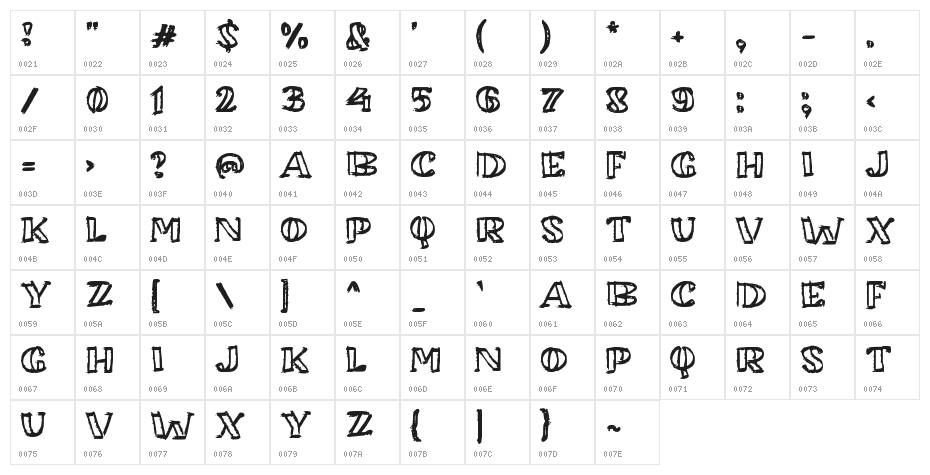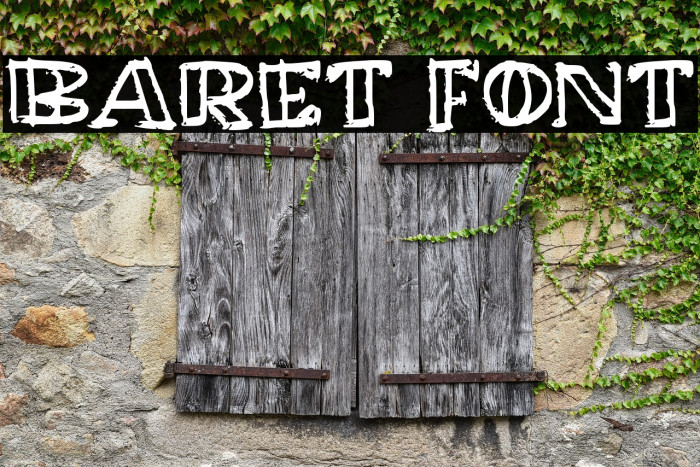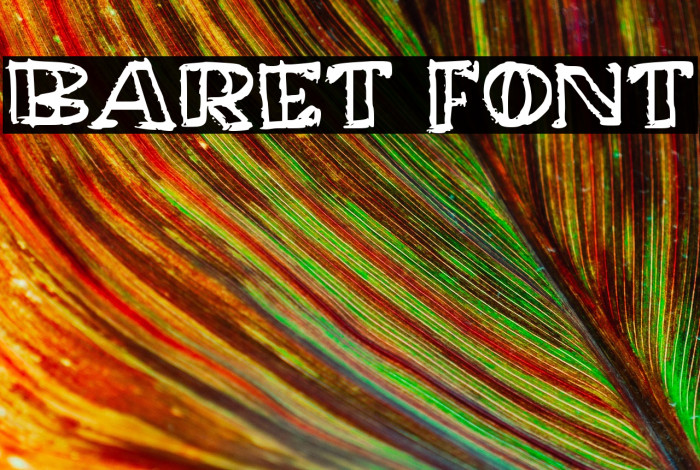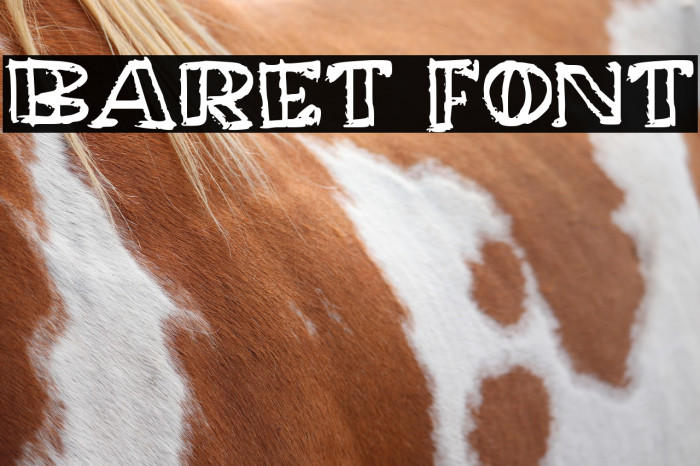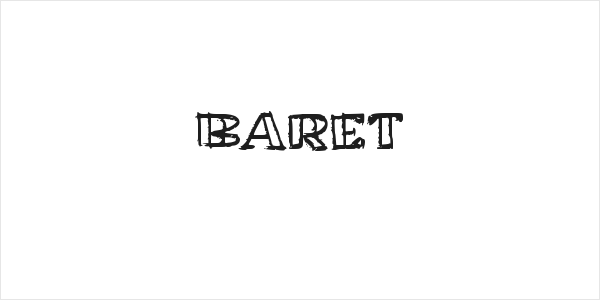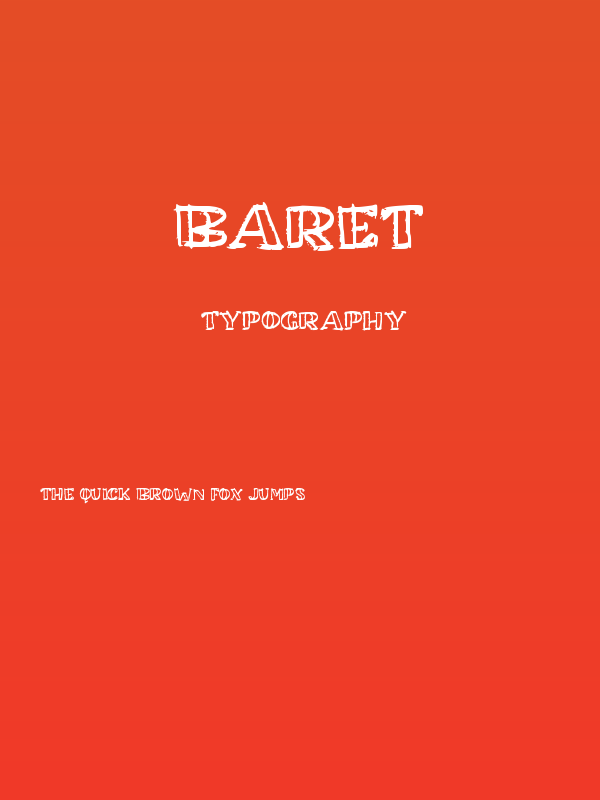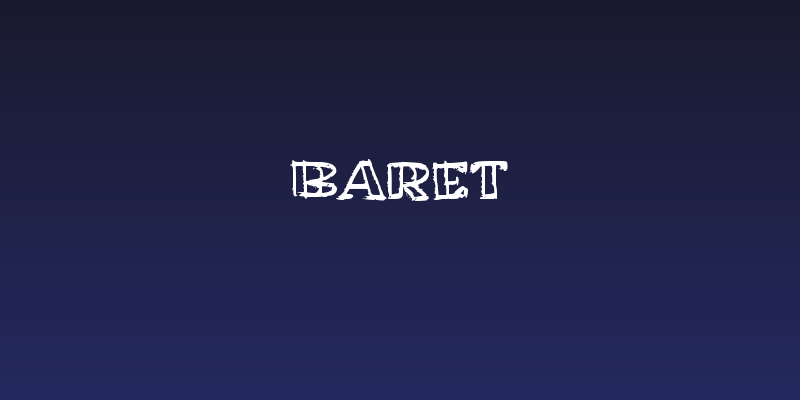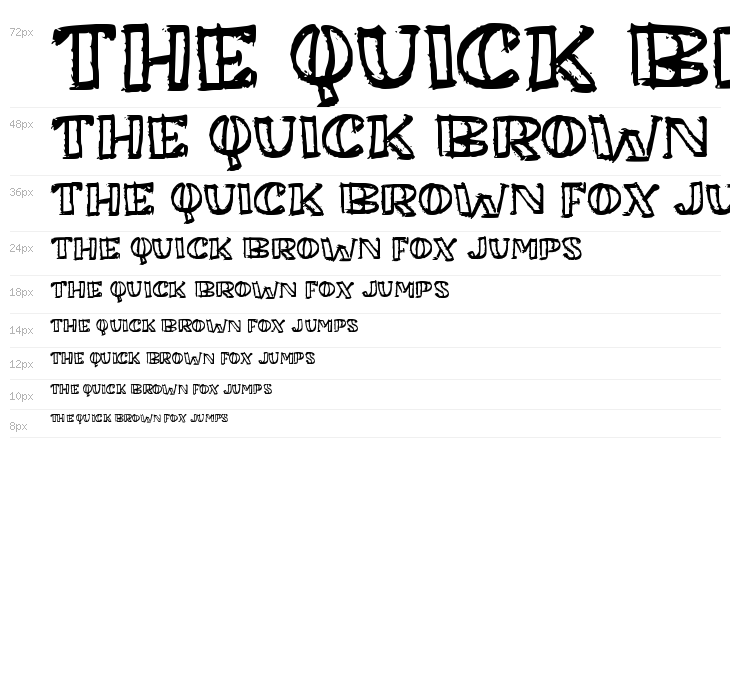
Baret Font
Baret Description
This font features a bold and rugged design with a distressed, grunge-like texture. The characters have a hand-drawn appearance, giving them an organic and dynamic feel. The strokes are uneven, with varying thicknesses that add to the font's edgy and rebellious style. The uppercase and lowercase letters maintain a consistent aesthetic, while the numbers and special characters complement the overall look. This font is ideal for projects that require a bold statement or a touch of urban flair.
Proposed ProjectsPerfect for album covers, posters, streetwear branding, and edgy graphic designs.